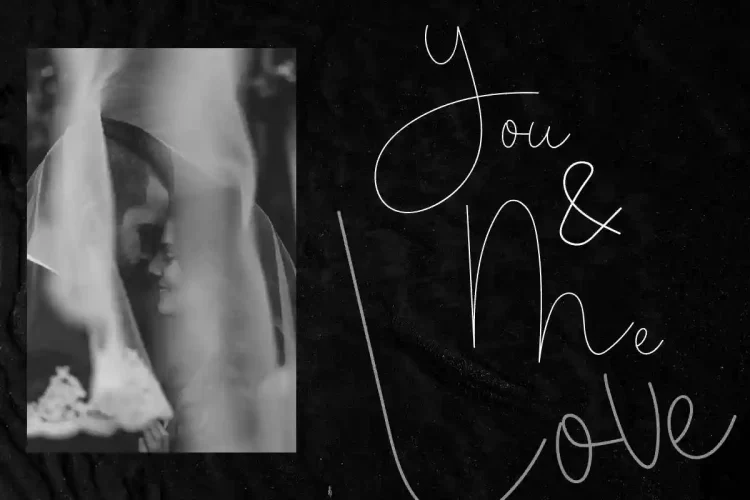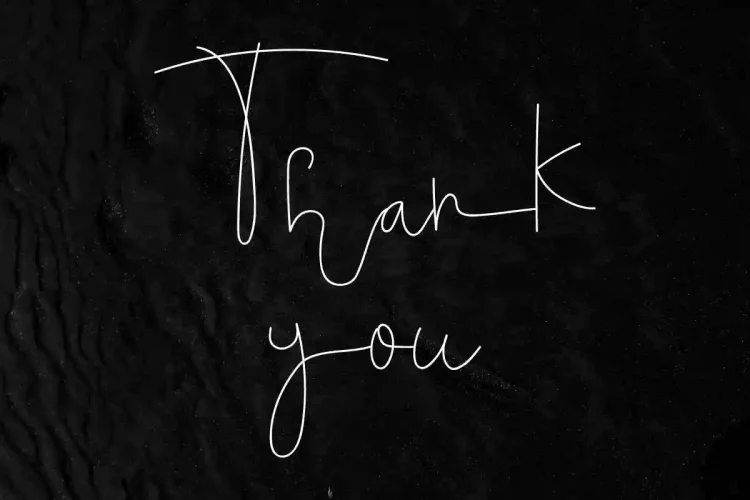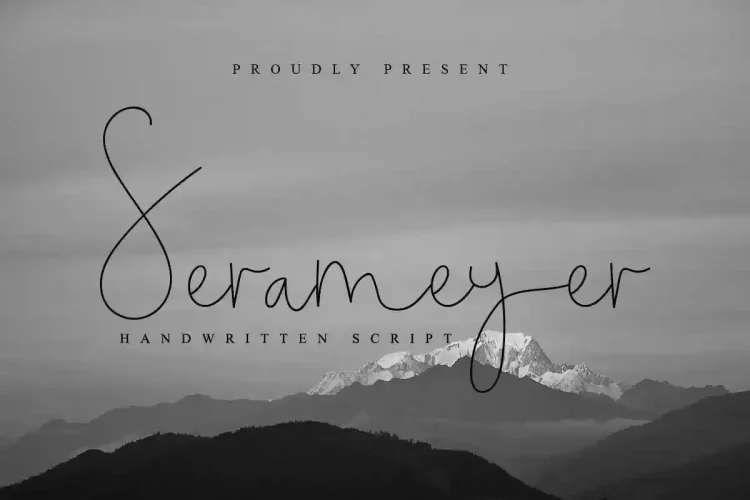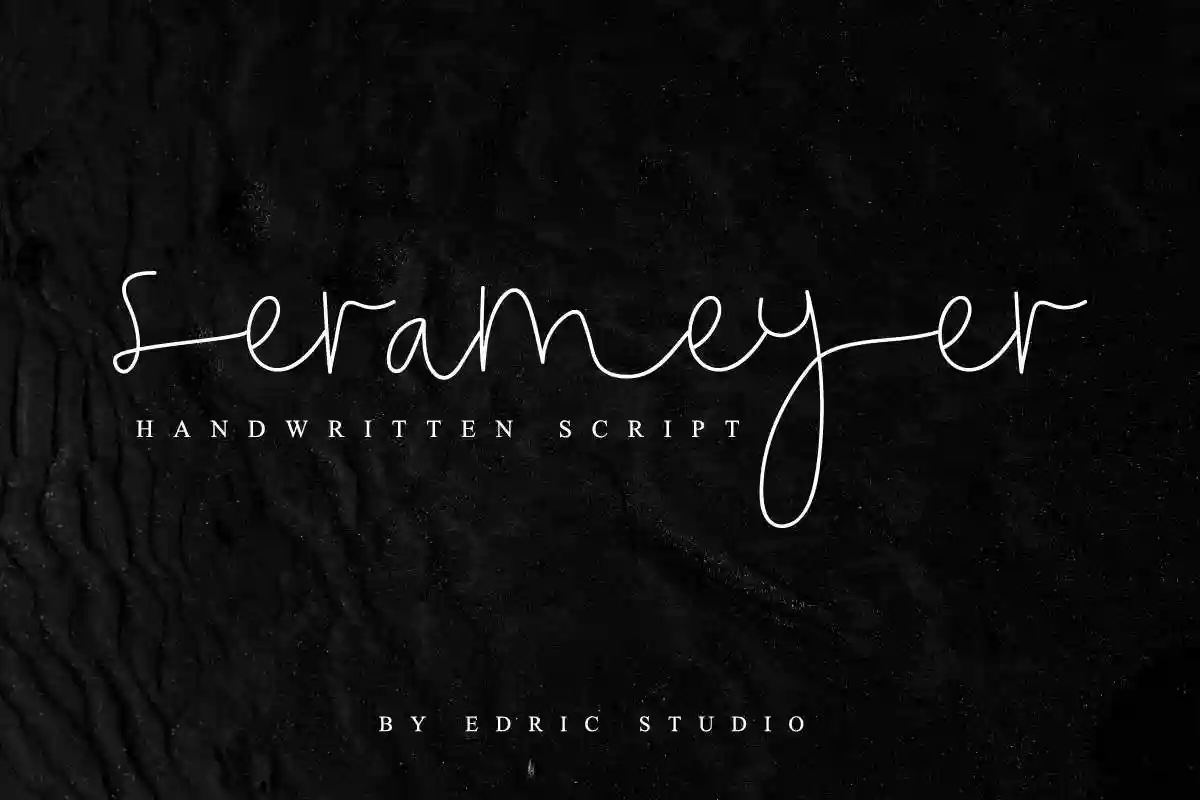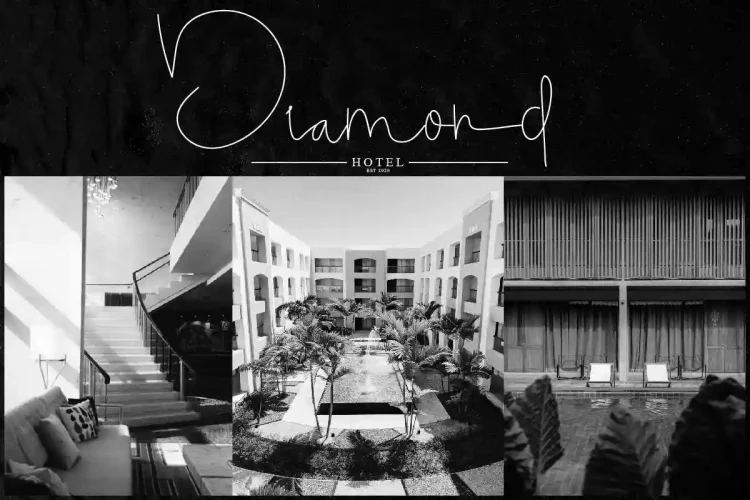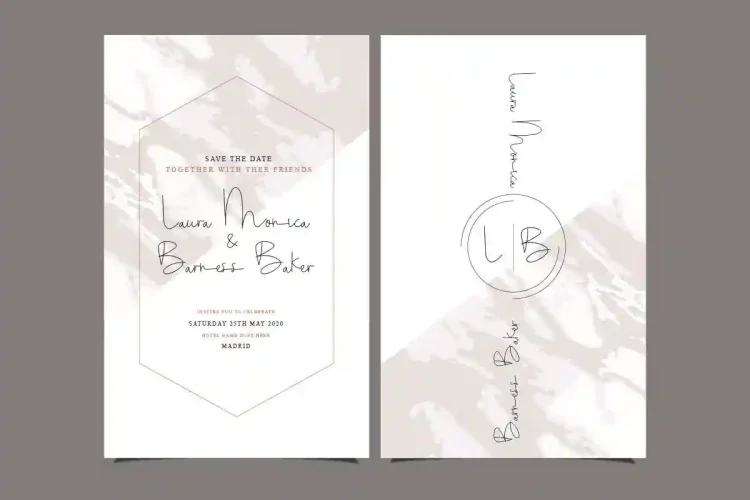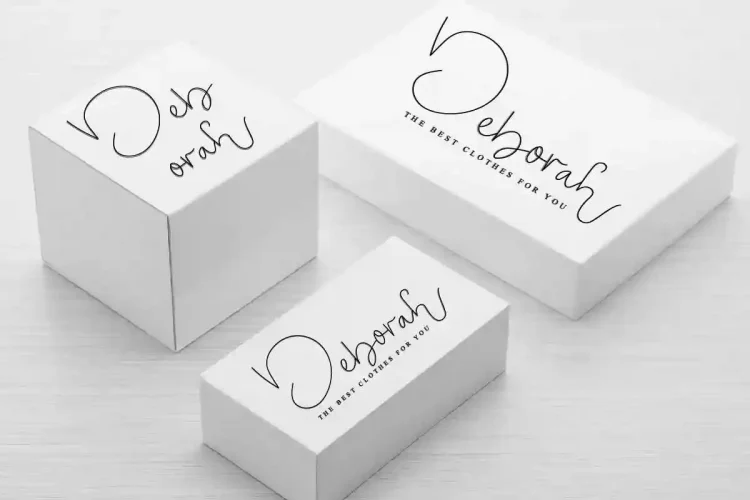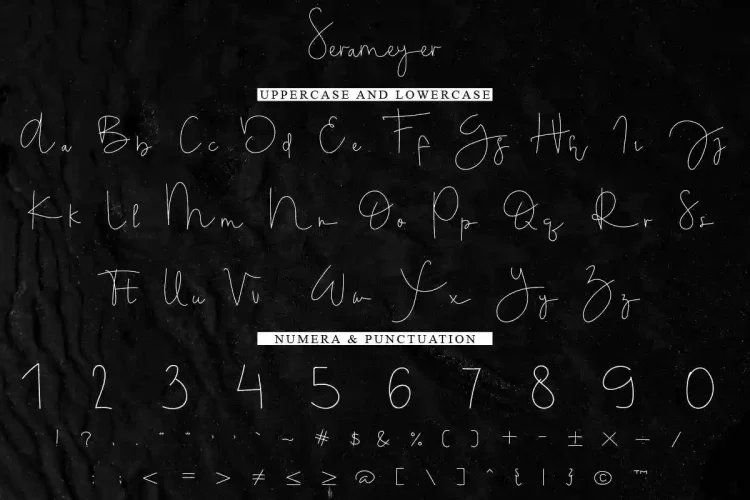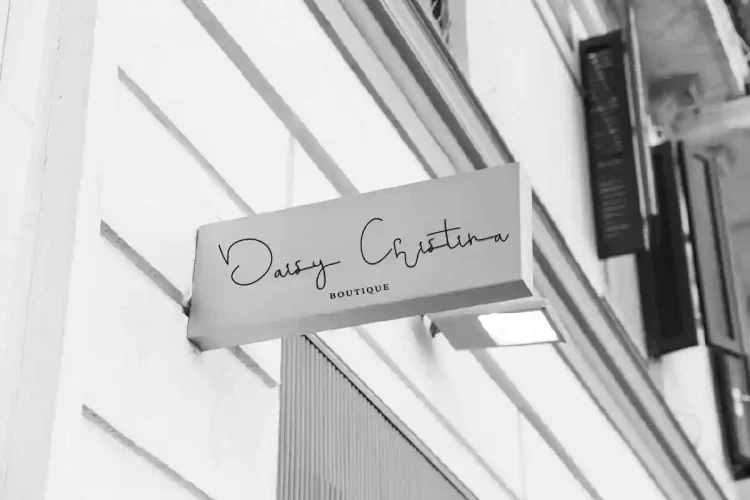
Serameyer Handwriting Font
Edric Studio Present to you : Serameyer Handwriting Font
This is a Script Font with natural signature hand written-pen Style, made in Bandung and Garut-Indonesia.
Bring warmth, personality, and elegance to your designs with Serameyer Handwriting Font. Crafted with a natural handwritten style, Serameyer offers a smooth and flowing touch that makes every word feel personal and heartfelt. Perfect for creative projects, branding, and stylish typography, this font adds a human touch that stands out in a digital world.
Whether you’re designing invitations, logos, quotes, social media posts, product packaging, or branding materials, this font blends elegance with a casual flair. Each letter flows beautifully, making your text effortlessly engaging and readable.
Serameyer Handwriting Font is fully versatile, offering multilingual support and high-quality kerning for a polished finish. From romantic wedding designs to bold creative branding, it adapts seamlessly to your style.
Serameyer Handwriting Font has a unique glyphs set so you can explore your creativity further more. This font will suits many projects categories : Logo type, flyer, stationery, card, signage, flyer, brochure etc.